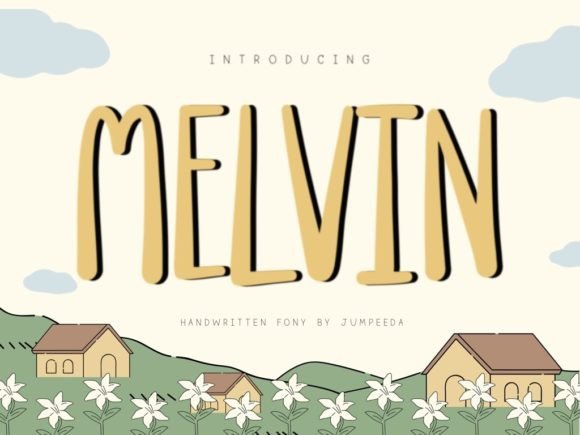
Welcome to the world of Melvin Font, a delightful script font family that will captivate your senses and bring your creative visions to life. Melvin Font is meticulously crafted to embody a neat and casual handwritten style, making it the perfect choice for adding a personal touch to your projects. Dive into the realm of Melvin Font and get ready to be mesmerized by its charm.
With Melvin Font, you can effortlessly create stunning designs that will leave a lasting impression. Whether you're a seasoned designer or just starting your artistic journey, Melvin Font is the perfect companion to help you express yourself creatively. From crafting heartfelt greeting cards to designing captivating digital content, Melvin Font seamlessly adapts to a wide range of applications. Let your imagination soar and let Melvin Font guide you towards creating extraordinary designs.
Melvin Font's versatility extends far beyond its aesthetic appeal. It's a font that inspires creativity and invites you to explore new possibilities. Imagine the joy of crafting unique logos, branding designs, and website headers that exude charm and elegance. Melvin Font's whimsical nature lends itself perfectly to projects where a touch of playfulness and personality is desired. Unleash your inner artist and let Melvin Font ignite your passion for design.
Don't miss out on the opportunity to add Melvin Font to your font collection. It's a font that will quickly become your go-to choice for adding a personal touch to your designs. With its neat and casual appearance, Melvin Font seamlessly blends with any design aesthetic, ensuring that your projects will always stand out. Embrace the magic of Melvin Font and elevate your designs to new heights.